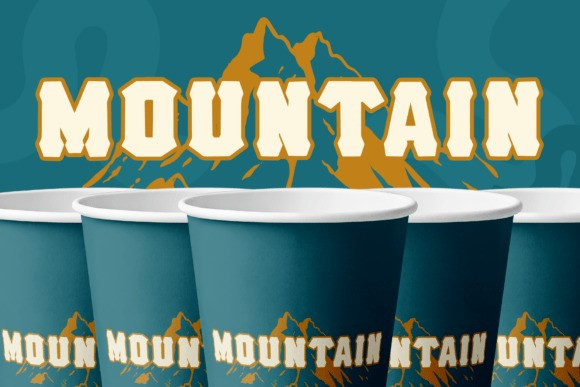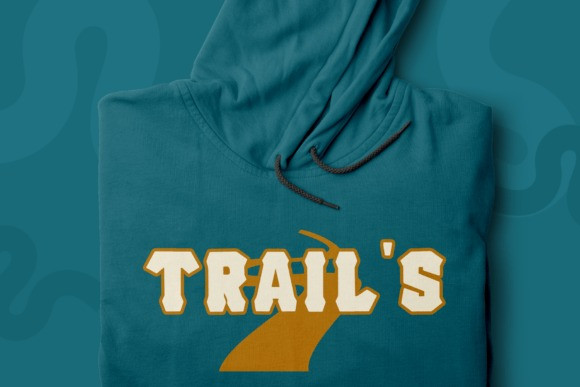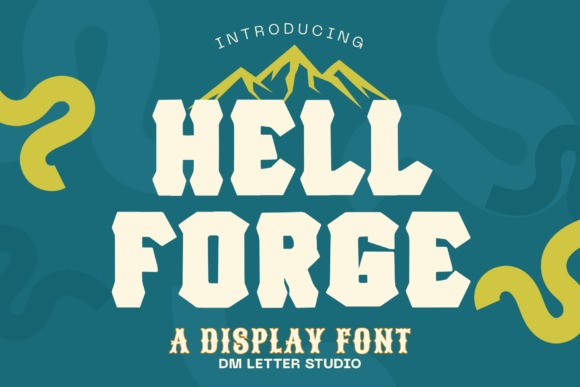
Hell Forge Font brings raw, industrial power to your titles. Letters feel heavy, angular, and confident. Edges cut clean like hot steel. Because the shapes stay bold and simple, your words read fast on shirts, patches, thumbnails, and posters. Use it for gaming brands, garage logos, biker merch, metal gigs, and gritty product labels. Moreover, the hell forge font pairs well with neutral sans serifs, so layouts look tough and tidy.
Where the Hell Forge font shines
Set short phrases, team initials, or product names. Then add outline layers, rivet textures, or soft inner shadows for depth. Since spacing is tuned for headlines, you can build covers, banners, and stickers in minutes. As a result, launch full collections for apparel, tools, and events without heavy tweaks. Plus, the blocky forms stay crisp at small sizes, which helps your shop stand out on mobile.